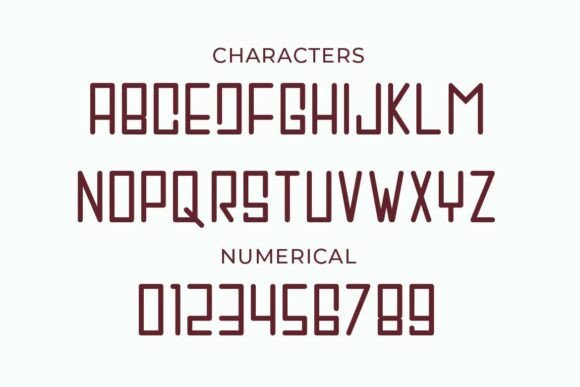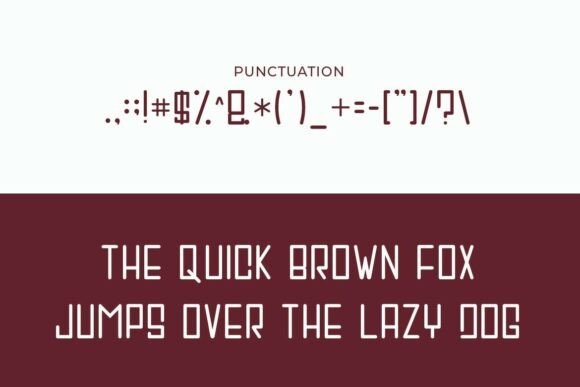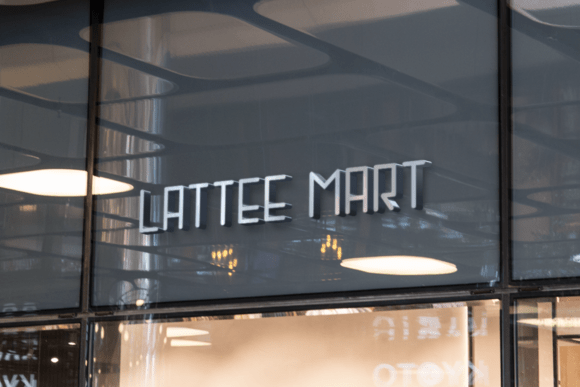
Introduction to Lembu Font
Lembu is a powerful condensed sans serif font designed to maximize impact in minimal space.
With its tall, narrow structure and solid strokes, Lembu commands attention while maintaining clean legibility Perfect for posters, headlines, branding, editorial layouts, sports graphics, and urban-inspired designs that need to speak loud and clear.
Key Features of Lembu Font